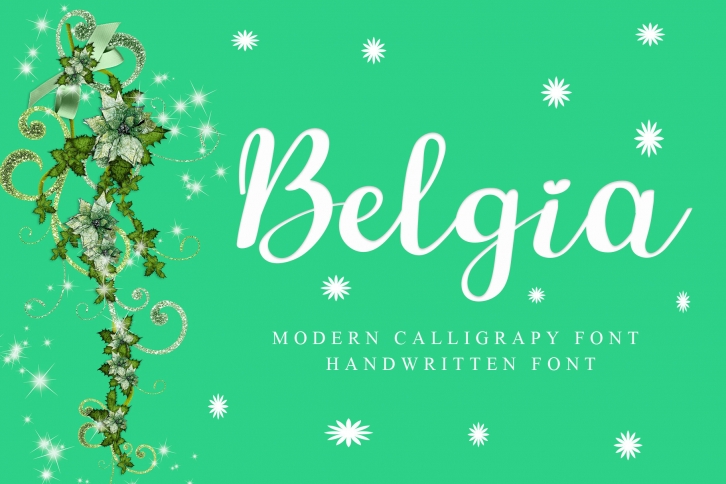
Belgia is a unique and elegant handwritten font. Looks great on wedding invitations, greeting cards, billboards, logos, business cards, and any other design that requires a handwritten touch. This font features a varied baseline, created with a natural, hand-made touch so that it creates spectacular creations and will make your ideas look more real.